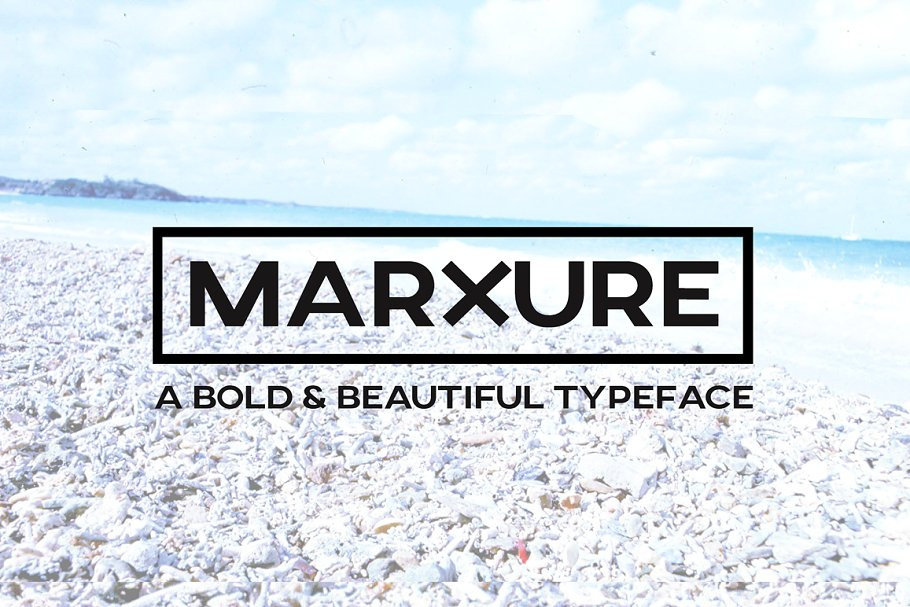
Marxure Font
Marxure Font is perfect for sophisticated luxury brands, high-end fashion houses, premium jewelry campaigns, exclusive hospitality venues, upscale beauty services, and elite lifestyle magazines. Its opulent character makes it ideal for luxury real estate firms, prestigious art galleries, five-star hotel chains, exclusive members' clubs, premium spa retreats, and any project requiring ultimate luxury with refined elegance and sophisticated exclusivity appeal.
This font is exciting because it represents the pinnacle of luxury typography and sophisticated design excellence while delivering exceptional functionality for the most discerning premium communications. The exquisitely crafted letterforms demonstrate uncompromising attention to detail and artistic refinement, creating typography that instantly communicates prestige, exclusivity, and the highest standards of luxury that resonate with affluent audiences seeking the finest experiences.
The Marxure Font family typically includes Light, Regular, Medium, and Bold weights with luxury alternates, sophisticated ligatures, and premium decorative elements that enhance its exclusive personality. This comprehensive collection provides luxury professionals with distinguished tools for creating prestigious brand systems that maintain elite credibility while offering creative flexibility for various high-end applications requiring uncompromising luxury standards and sophisticated market positioning.
Whether you're developing identity systems for luxury conglomerates, creating materials for exclusive events, or designing campaigns for premium lifestyle brands, Marxure Font Free Download delivers the sophisticated elegance and luxury authority that connects with the most discerning clientele worldwide. Its distinguished presence ensures prestigious brand recognition across digital platforms and print materials, making it perfect for websites, mobile applications, and luxury campaigns that celebrate elite craftsmanship, sophisticated taste, and the transformative power of authentic luxury experiences with contemporary elegance and uncompromising premium standards.